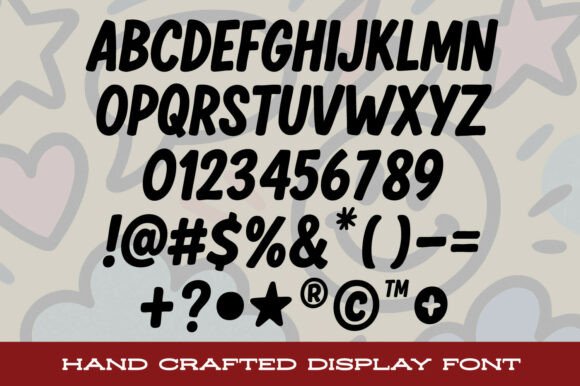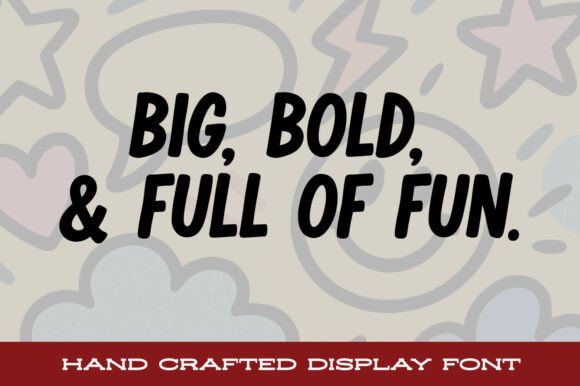
Introduction to Popthick Font
Remember that moment when you’re brainstorming ideas for a creative project, and you just can’t find the right font to bring your vision to life? You’re browsing through design resources, scrolling through font collections, and searching for that perfect high-quality font that screams “attention-grabbing.” That’s where the Popthick Font comes in – a game-changing, bold display font that’s about to become your new go-to design secret.
With its thick lines, smooth curves, and hand-drawn charm, the Popthick Font is an absolute must-have for designers looking to add some personality and confidence to their work. Whether you’re designing a logo, packaging, or social content, this font is sure to make your message stand out. And the best part? You can download it for free with a transparent background, making it easy to integrate into any design project.
- High-quality design resource ideal for creative projects, offering a unique and eye-catching aesthetic.
- Perfect for designers seeking a distinctive and modern design element for their creative projects.
Honest Review: Popthick Font
I recently had the chance to work with the Popthick Font, and I must say it’s been a game-changer for my design projects. This high-quality font has quickly become a go-to resource for me.
- ✨ Excellent legibility, making it perfect for body text.
- ✨ A wide range of font styles, from bold to italic, giving me plenty of options for creative projects.
- ✨ The transparent background feature allows for seamless integration with images and graphics.
- ⚠️ Limited character set, which may be a concern for languages that require a broader range of characters.
Overall, I’m thoroughly impressed with the Popthick Font. Its high-quality design and versatility make it an excellent addition to any design resource library. If you’re looking for a reliable font for your creative project, I’d definitely recommend giving it a try.
Popthick Font: Tips for Getting the Most Out of It
For the best results with Popthick Font, be sure to use it with a high-quality image or design. The font’s transparent background makes it easy to use with any background image or color. You can also experiment with different font sizes and styles to add visual interest to your design.
Common Use Cases for Popthick Font
Popthick Font is a great choice for any creative project, including logos, business cards, and social media graphics. Its high-quality design and transparent background make it easy to use in a variety of contexts.
Alternatives to Popthick Font
Bangers Font is a high-quality, bold sans-serif font that’s perfect for creative projects requiring a unique touch. It’s available for free download and offers a transparent background, making it ideal for designs with a minimalist aesthetic. When to use: Headings, titles, and calls-to-action. Comparison: Bangers Font is more playful and energetic compared to Popthick Font, which has a more elegant and sophisticated feel.
Great Vibes Font is a beautiful, cursive script font that’s great for adding a touch of elegance to your design. It’s a high-quality design resource that’s perfect for creative projects, such as wedding invitations, menus, and more. When to use: Body text, quotes, and headings. Comparison: Great Vibes Font is more decorative and ornate compared to Popthick Font, which has a more modern and clean feel.